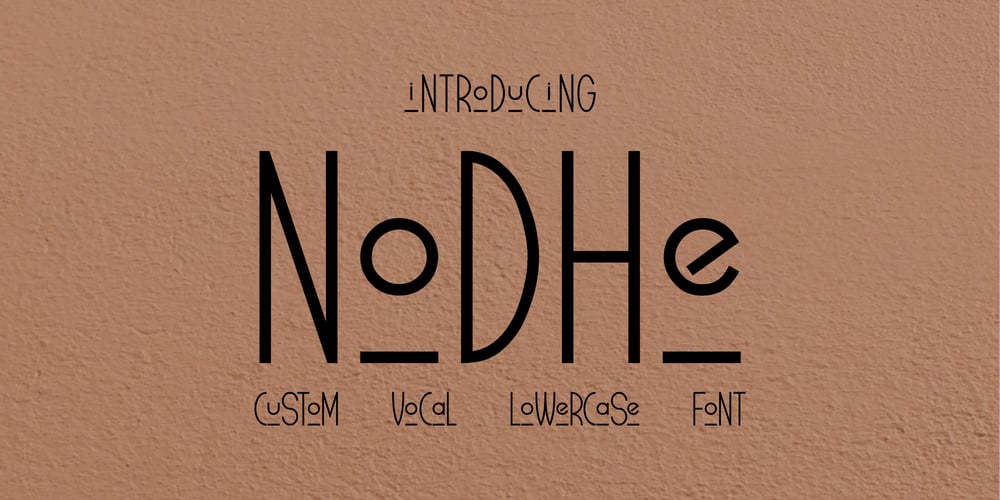
Nodhe Font Family was designed by Iskandar Zulkarnain and published by Wontenart. Nodhe contains 1 styles and family package options. Fonts with special characters in lowercase vowels:a, i, u, e, oMake sentences more colourful. This font is neutral for use in any product.Especially for happy things, or life motivational words. or contemporary like the teenage years,discover the beauty of harmony in your work with this font. The right choice of fonts, makes a great product.